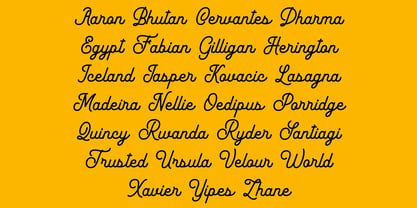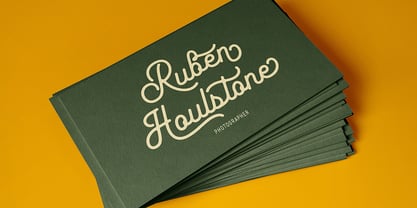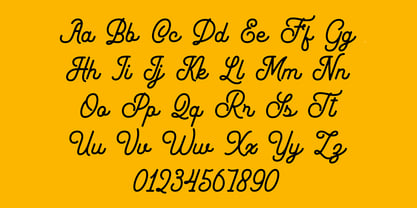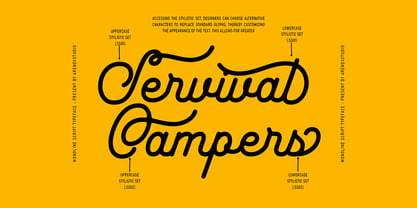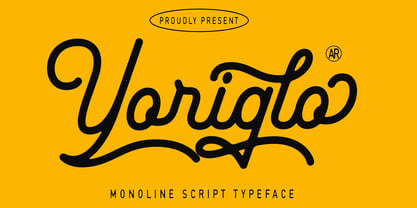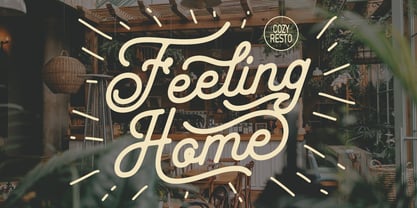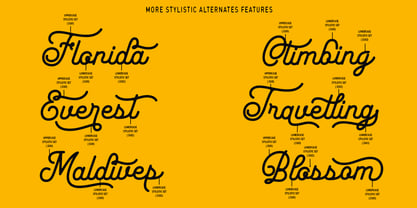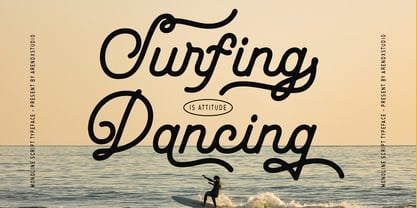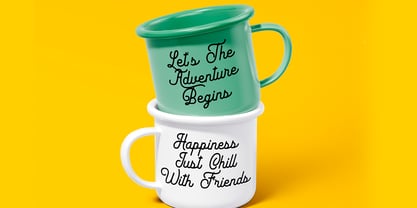
Yoriglo
Font Description: Yoriglo
Yoriglo is a vintage monoline script font that combines the elegance of mid-century typography with the clean, consistent lines of modern design. Inspired by the smooth, flowing scripts of the 1950s and 1960s, Yoriglo features uniform stroke widths and a balanced, rhythmic flow that exudes sophistication and charm. Its timeless appeal makes it perfect for projects that require a touch of retro elegance with a contemporary twist.
Yoriglo’s monoline design ensures readability while maintaining a handcrafted, organic feel. The font’s graceful curves and seamless connections between letters make it ideal for creating a sense of fluidity and harmony in your designs. Whether you’re working on branding, packaging, or editorial projects, Yoriglo adds a touch of vintage class that never goes out of style.
Key Features:
- Monoline script with consistent stroke widths
- Smooth, flowing letterforms inspired by vintage typography
- Perfect for logos, branding, packaging, and invitations
- Includes uppercase, lowercase, numbers, and punctuation
Use Cases:
- Retro-inspired branding and logos
- Elegant packaging and labels
- Wedding invitations and event signage
- Editorial designs and headlines